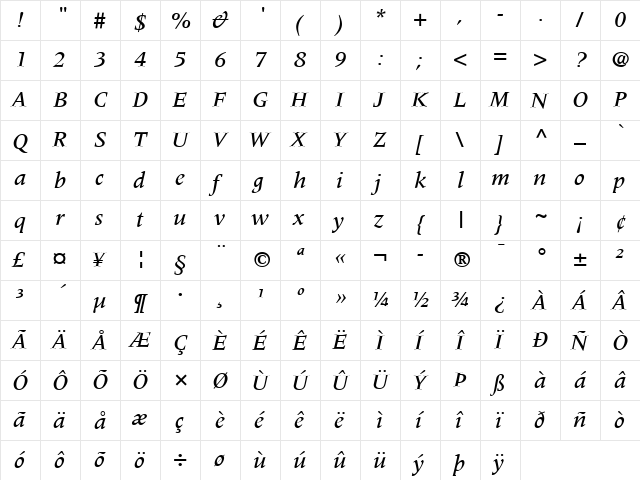
Meridien LT Medium Italic Font Preview
Meridien LT Medium Italic
Meridien LT Medium Italic Font Details
Design Context for Meridien LT Medium Typeface
Meridien LT Medium is a composed and adaptable typeface that performs quietly and consistently across a wide range of design contexts. The slanted form adds forward momentum and visual energy. Its slender proportions lend an understated elegance to any composition.
Pro Tip: Try Meridien LT Medium for annotation and caption copy alongside an upright companion — the contrast in angle creates a dynamic but ordered typographic system.